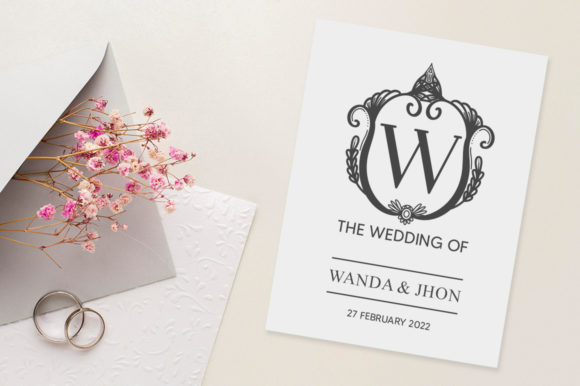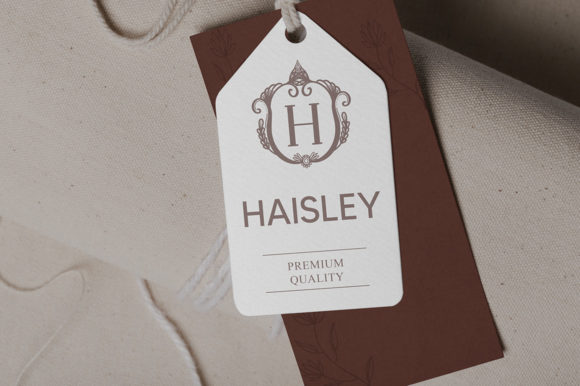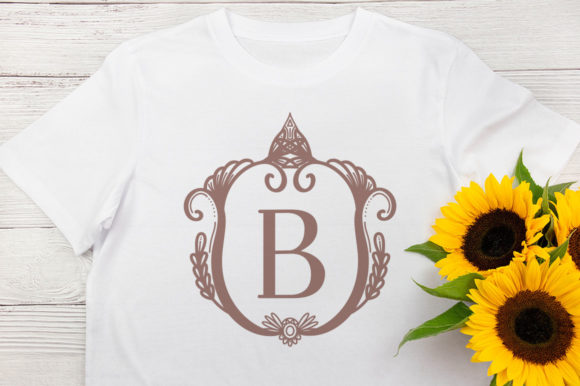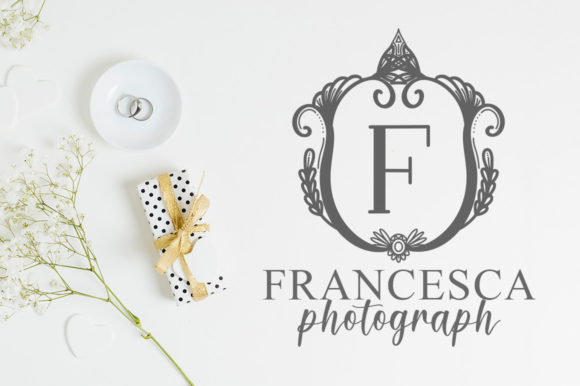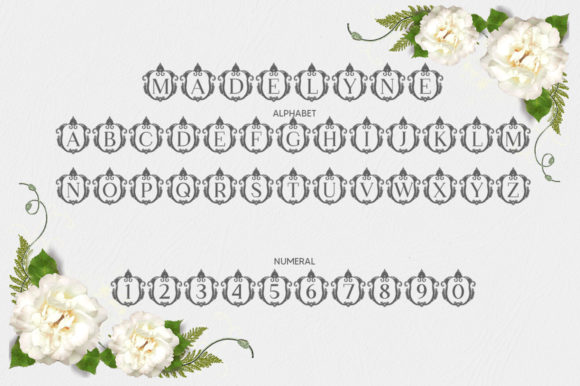
Introduction to Madeline Monogram Font
Have you ever found yourself in the midst of a creative project, scrolling through font options, and suddenly stumbling upon that one perfect font that makes everything click? For many designers, this moment is a dream come true. Today, we’re excited to share with you a lovely, high-quality font that’s sure to elevate your designs: the Madeline Monogram Font.
This delicate and authentic decorative font is a design resource like no other. With its versatility and range of uses, from logos to photography and beyond, the Madeline Monogram Font is a valuable addition to any designer’s toolkit. Whether you’re working on a creative project that requires a touch of elegance or a free download to spice up your branding, this font is sure to deliver.
Key Features of Madeline Monogram Font
- High-quality design: The Madeline Monogram Font offers a sophisticated and elegant design perfect for a variety of creative projects.
- Customizable: This font is ideal for designers who want to add a personal touch to their projects, with various customization options available.
- Perfect for weddings and events: The elegant design of the Madeline Monogram Font makes it a popular choice for wedding invitations, event branding, and more.
Honest Review: Madeline Monogram Font
I recently stumbled upon the Madeline Monogram Font, and I must say it’s a fantastic addition to any design project. As a designer, I’m always on the lookout for high-quality fonts that can elevate my work and help me stand out. This font is a great example of a well-designed, versatile font that’s perfect for a creative project.
- Beautiful, elegant design
- Perfect for a wide range of creative projects
- No bold or italic versions available
Overall, I’m impressed with the Madeline Monogram Font. It’s a great design resource for designers looking for a high-quality, elegant font for their next project. With a little creativity, this font can really make your design stand out.
The Madeline Monogram Font is commonly used in wedding invitations, baby shower decorations, and other special occasion designs. It’s also used in branding and marketing materials for businesses and individuals who want to add a touch of elegance and sophistication to their designs.